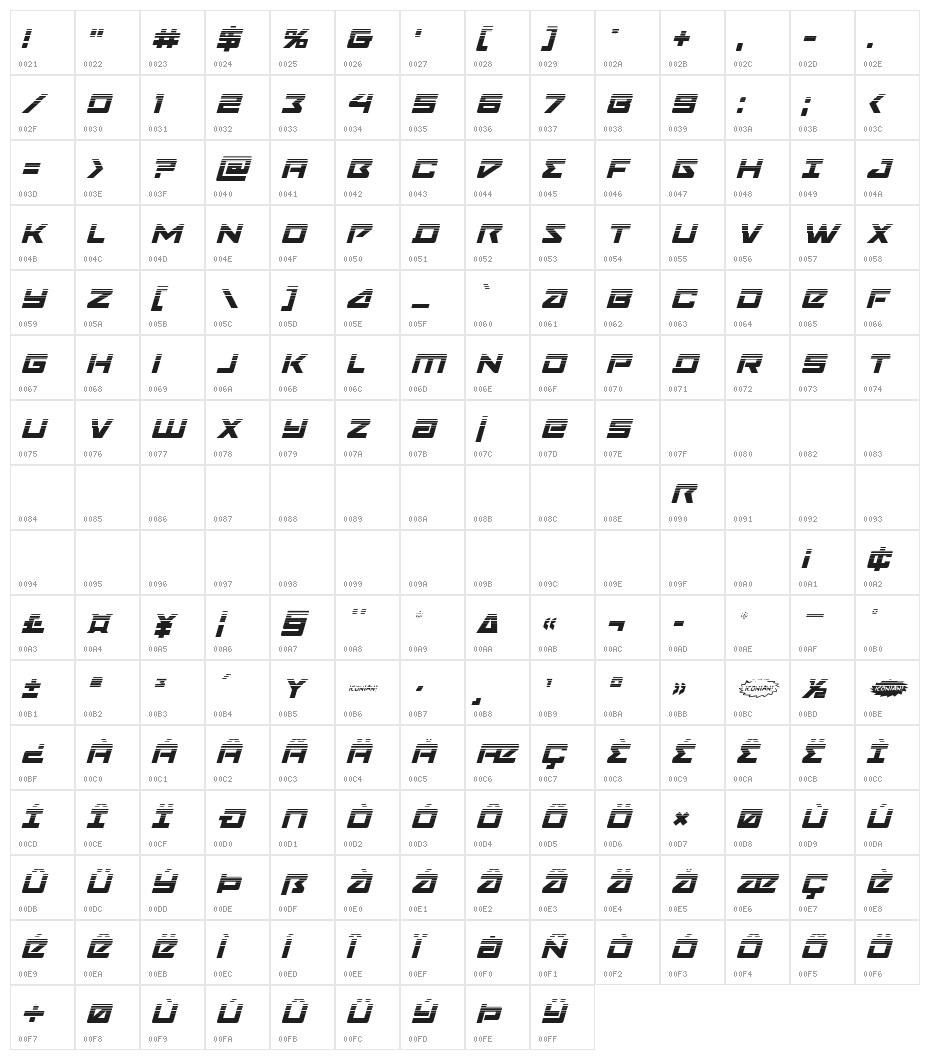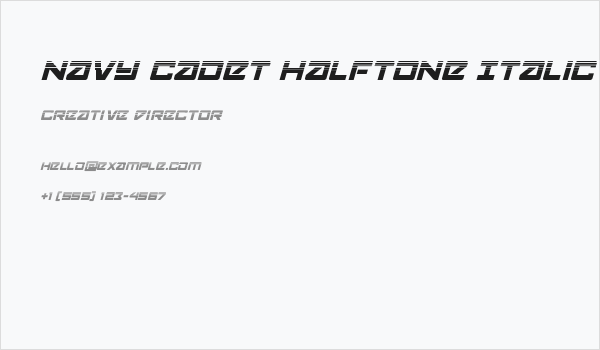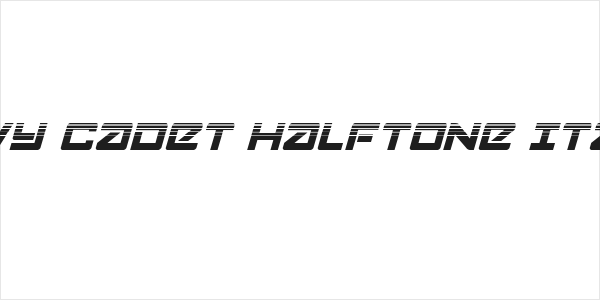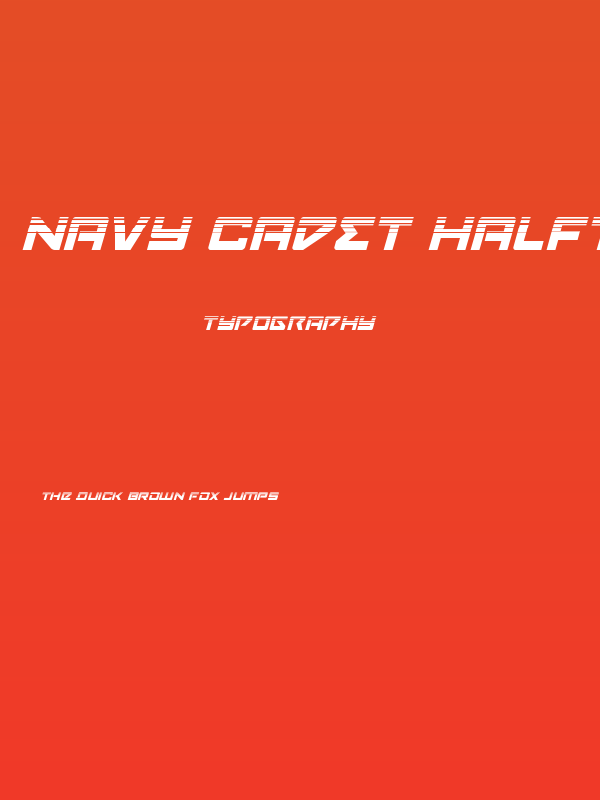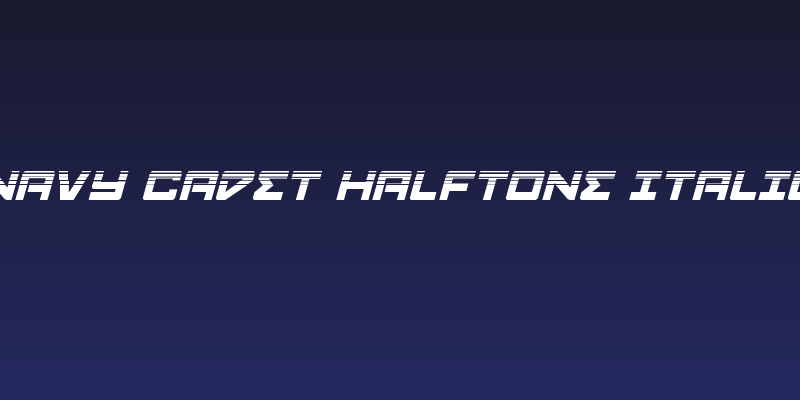
Navy Cadet Halftone Italic Font
Navy Cadet Halftone Italic Description
This font features a bold, futuristic design with a halftone effect that gives it a dynamic and energetic appearance. The characters are italicized, adding a sense of motion and speed. Each letter is constructed with sharp angles and geometric shapes, creating a modern and edgy look. The halftone pattern within the characters adds texture and depth, making it stand out in digital and print media. The font is well-suited for projects that require a strong visual impact, such as technology-related branding, sports team logos, or sci-fi themed designs. Its unique style is both eye-catching and versatile, allowing it to be used in a variety of creative applications.
| Proposed Projects | Ideal for technology branding, sports logos, sci-fi themes, and digital media projects. |